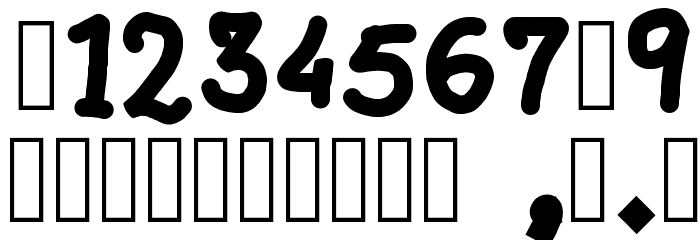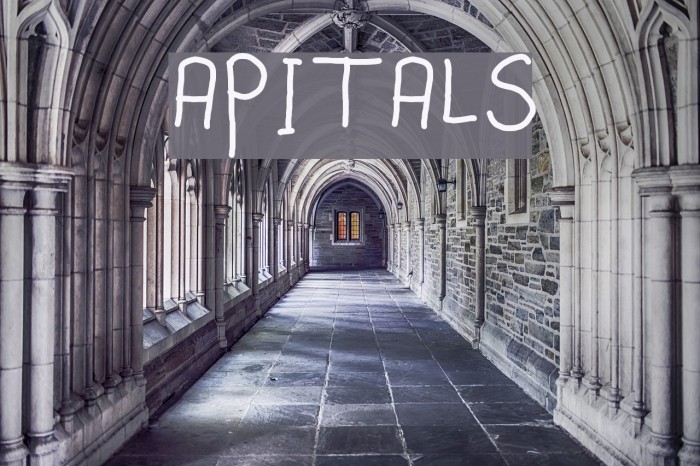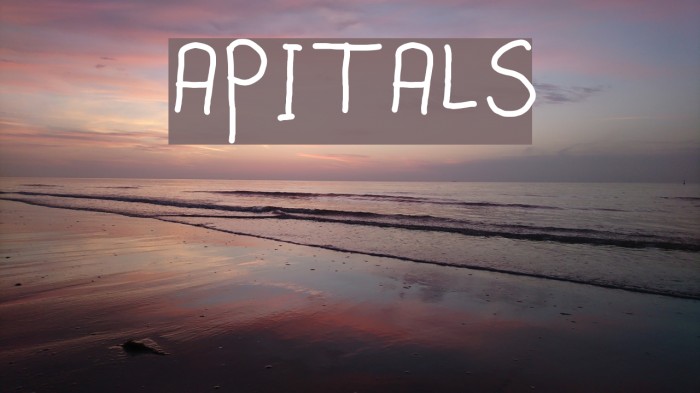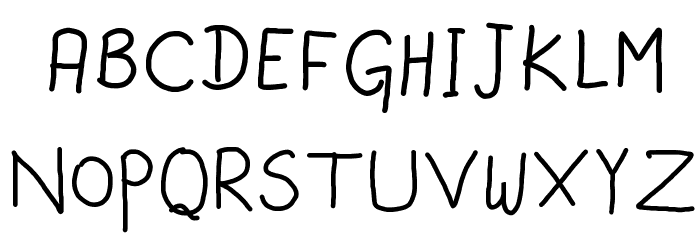
Capitals Font
Capitals Description
This font features a playful and informal handwritten style, characterized by its irregular strokes and casual appearance. The uppercase letters are slightly slanted, giving them a dynamic and lively feel. The numbers are bold and rounded, maintaining the playful aesthetic. The overall design is reminiscent of a casual script, with a friendly and approachable vibe. This font is well-suited for projects that require a personal touch or a sense of whimsy. The characters are evenly spaced, ensuring readability while maintaining the font's unique style.
A playful, informal handwritten font with dynamic strokes from Uncategorized fonts.
- Proposed Projects: Ideal for greeting cards, children's books, casual invitations, and playful branding.
- Overall Style: Casual, Playful
- Use Case: Headlines, Informal text, Creative projects